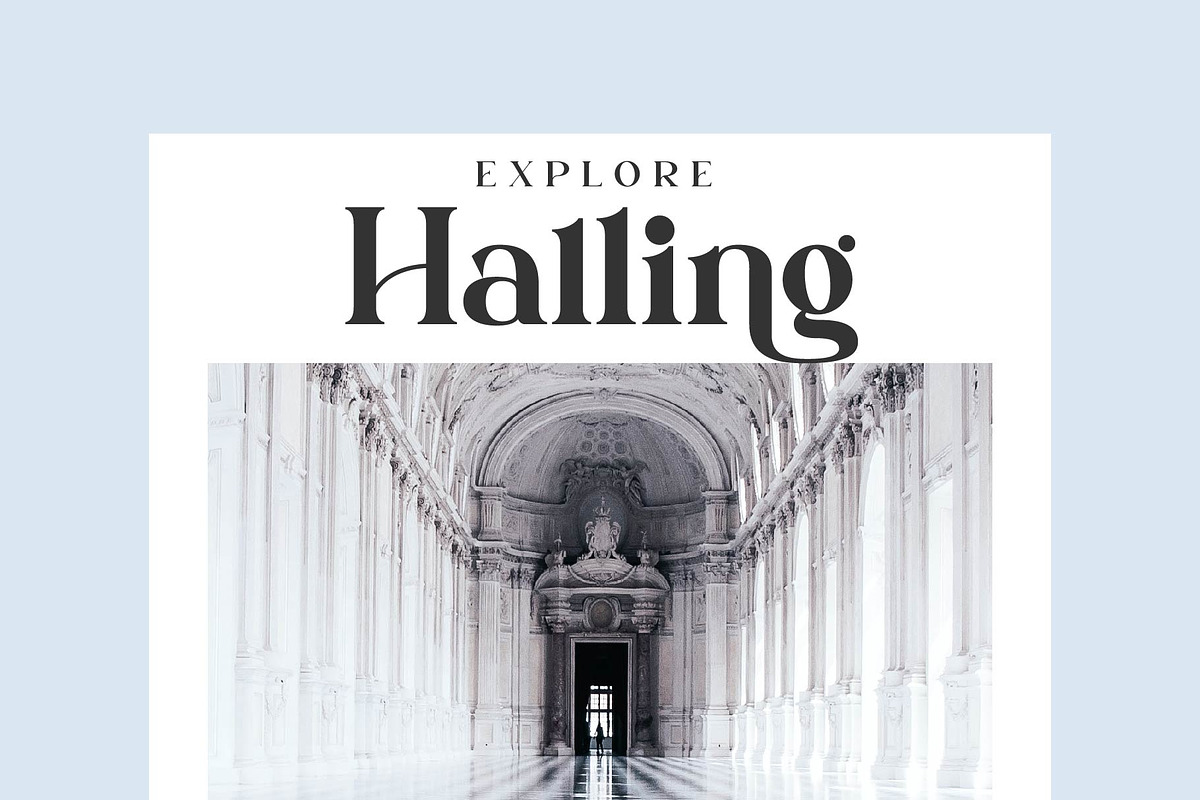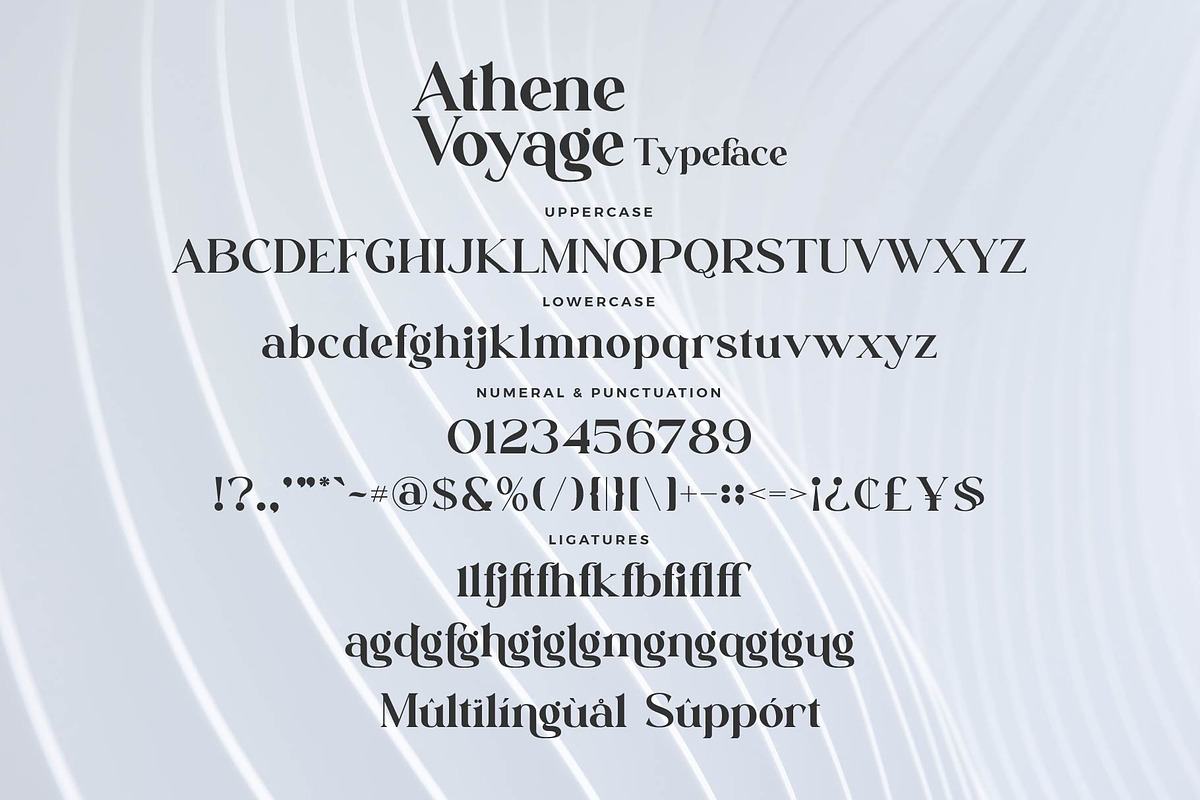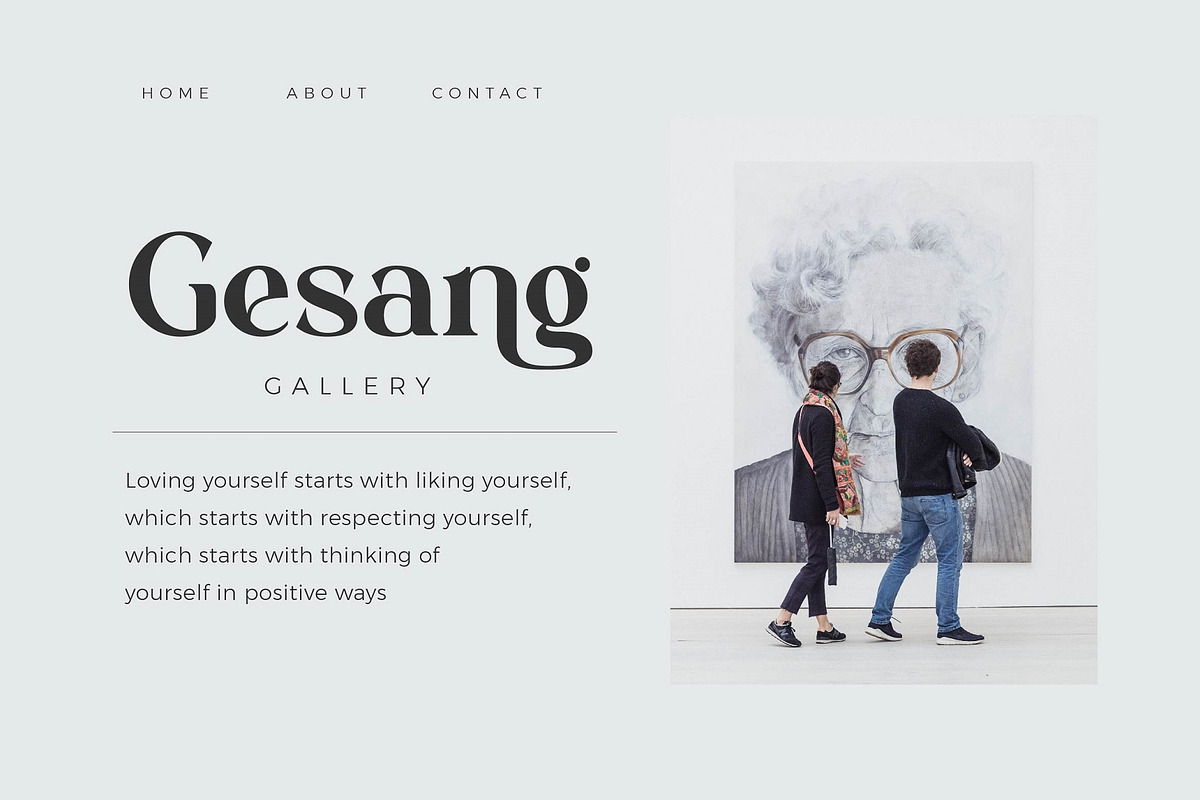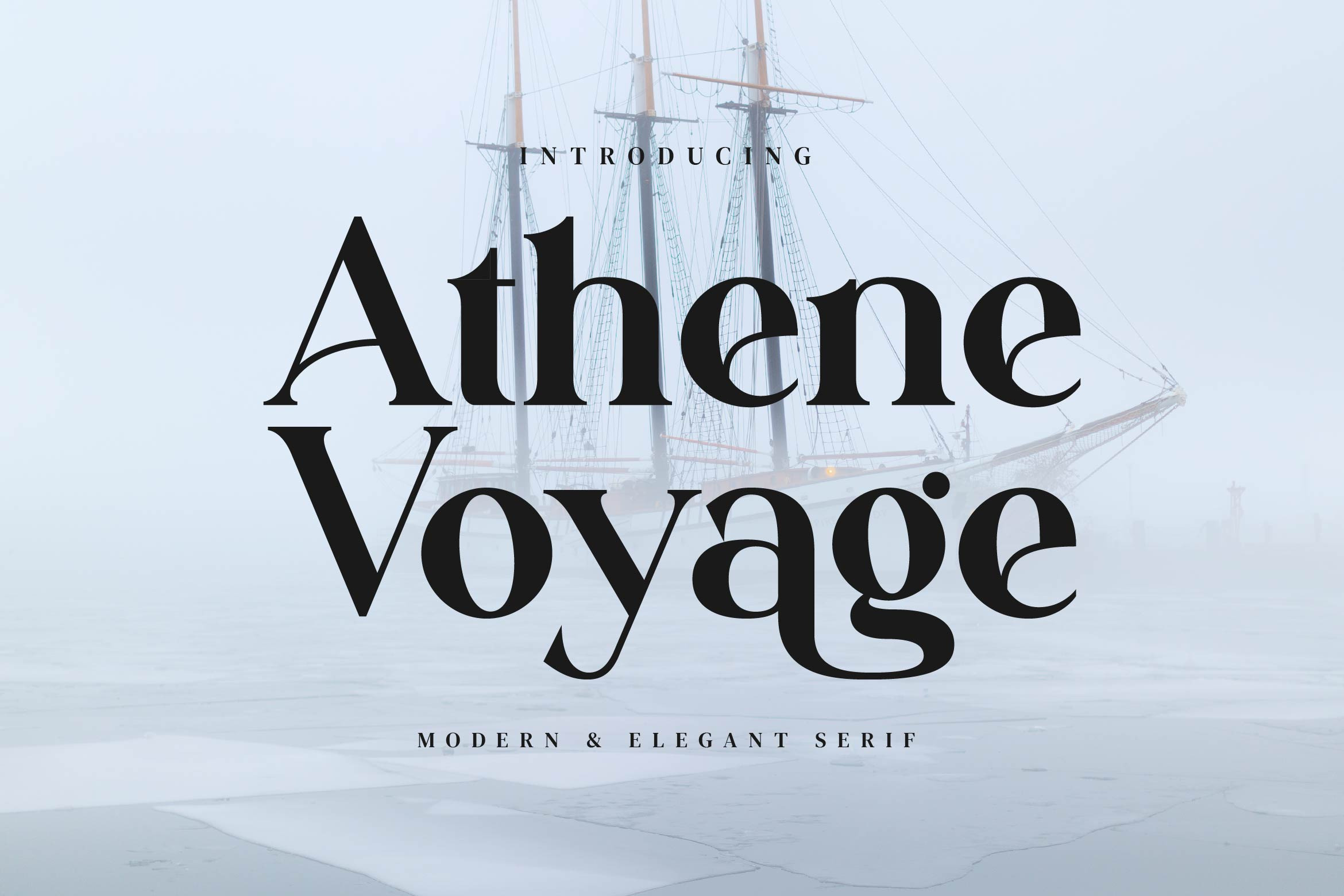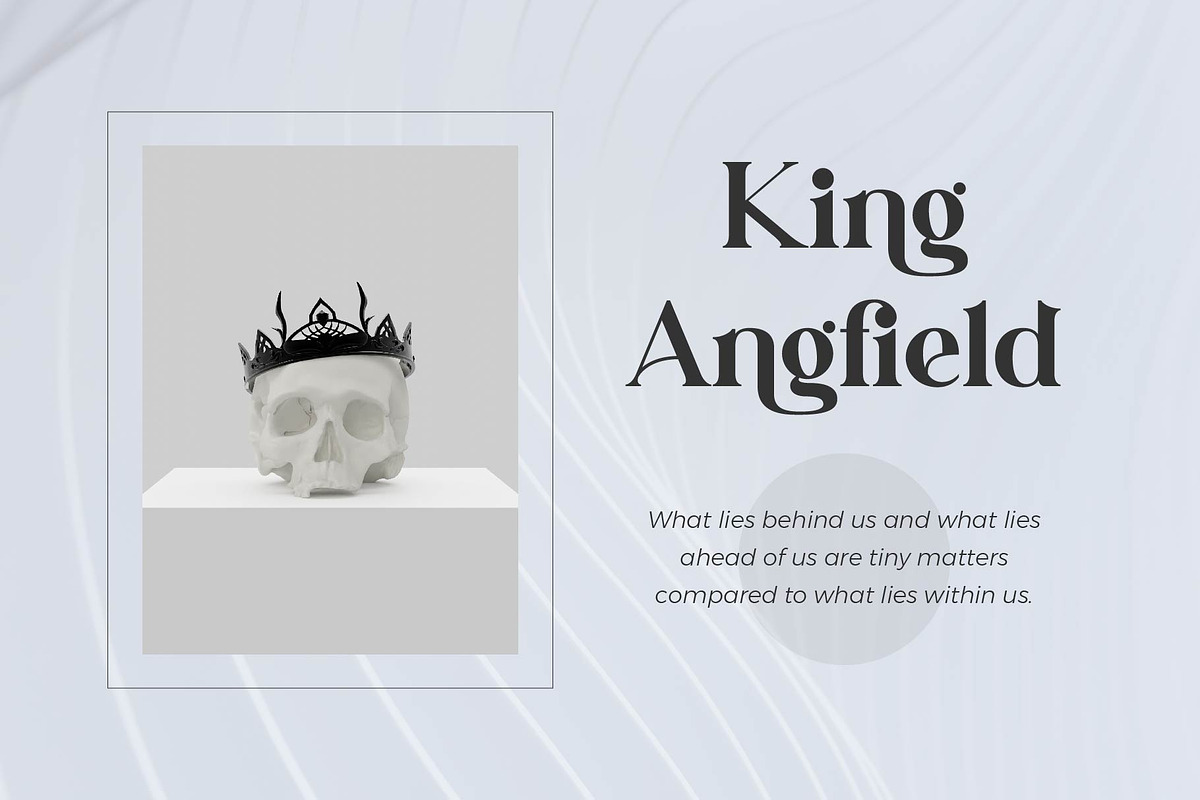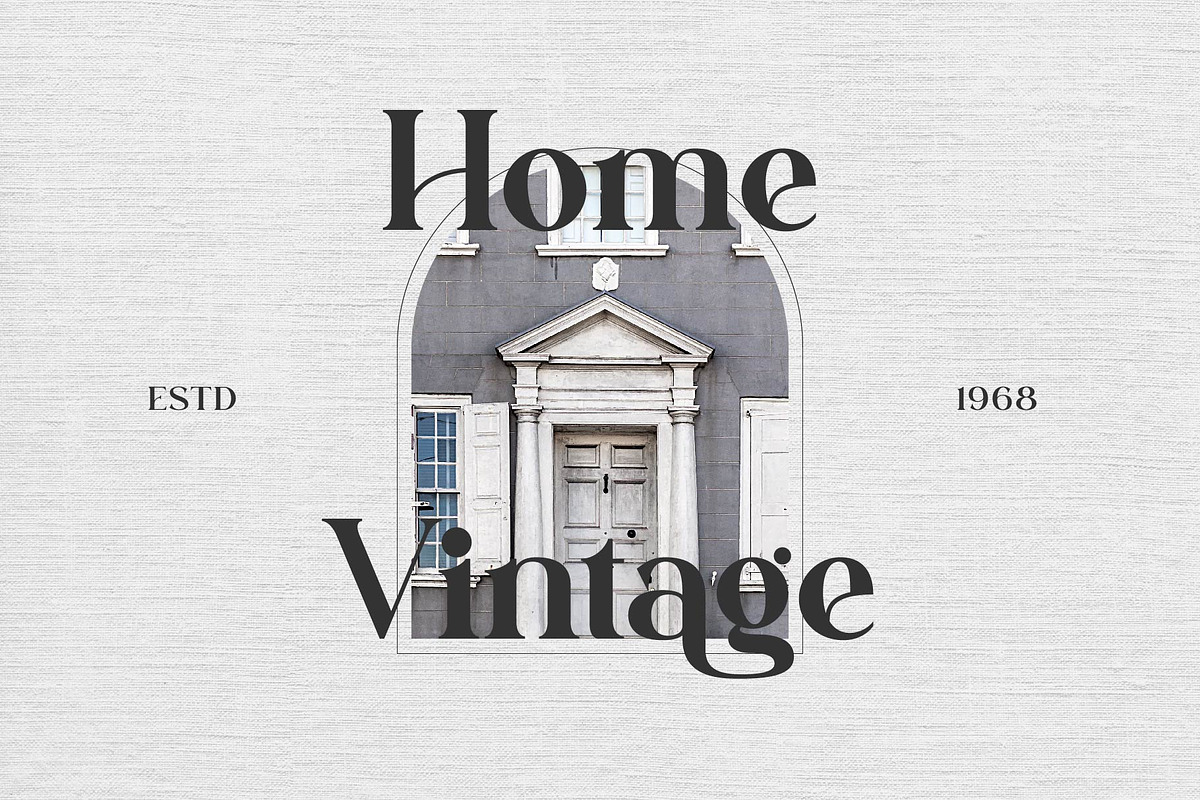
Athene Voyage - Stylish Serif Font
Athene Voyage Stylish Ligature Typeface, inspired by the famous minimalist logo perfect for the purposes of designing templates, brochures, videos, advertising branding, logos and more.